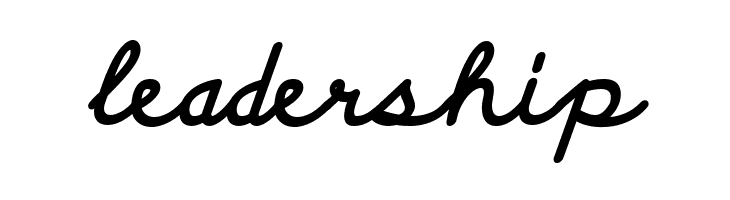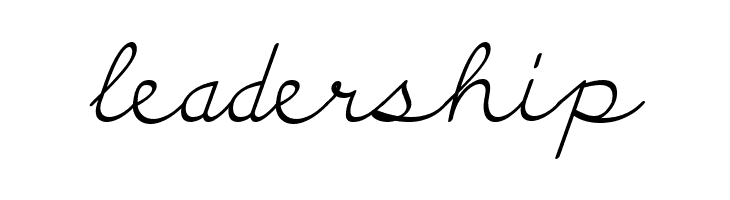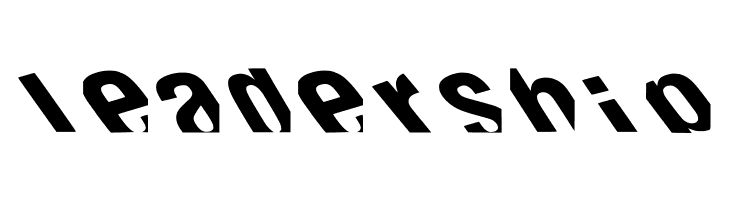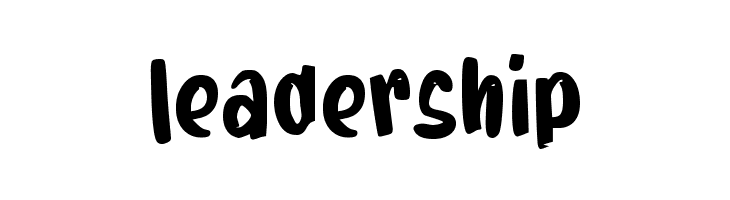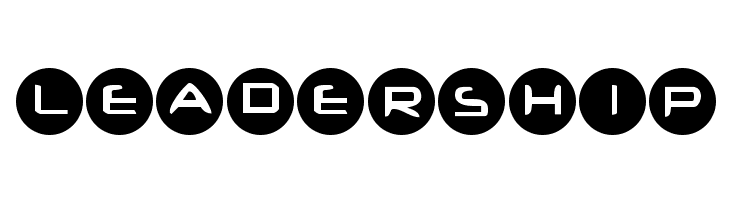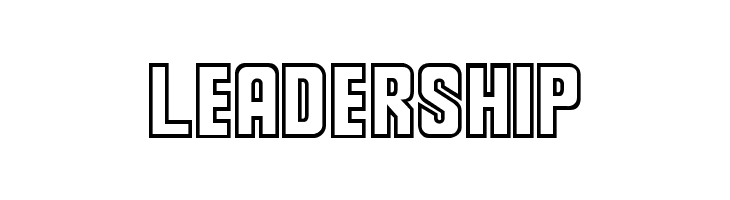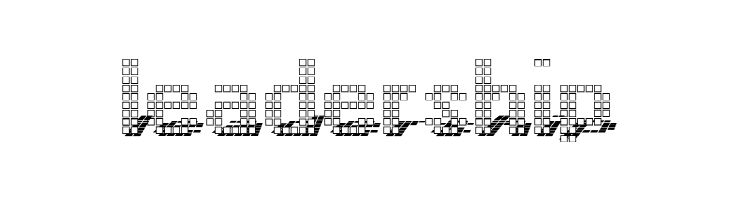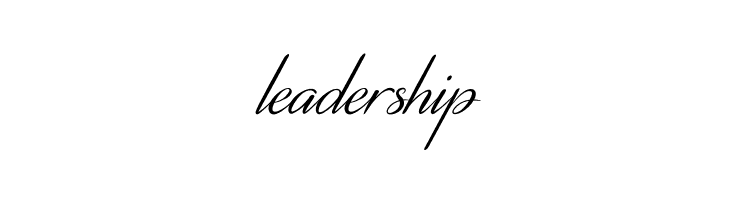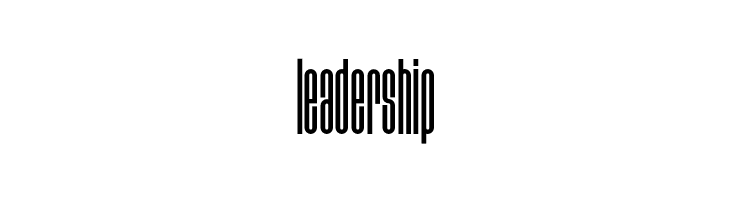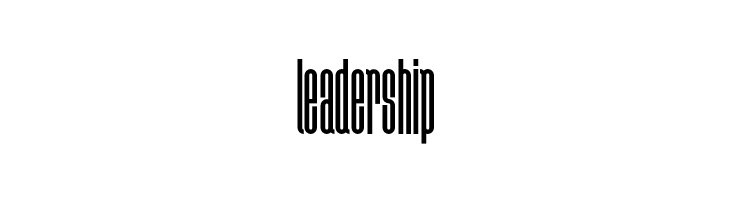
A dynamic and expressive script font with fluid, elegant letterforms.
A bold, geometric sans-serif font with rounded edges and uniform width.
A clean, geometric font with a modern and minimalist design.
A decorative font made entirely of dinosaur silhouettes.
A bold, cursive font with a playful, handwritten style.
A bold, decorative, and distressed italic font with a vintage flair.
A bold, decorative font with a distressed, vintage appearance and whimsical detailing.
A bold, decorative, and distressed italic font with a vintage flair.
A bold, decorative font with a distressed, vintage appearance.
An ornate and decorative font with intricate swirls and flourishes.
A bold, distressed font with a rugged, grunge appearance.
An elegant, flowing script font with ornate uppercase and harmonious lowercase characters.
A bold, playful font with a dynamic, hand-drawn style.
A bold, rugged font with a prehistoric, hand-carved appearance.
A playful, handwritten font with quirky dinosaur illustrations.
A bold, playful font with rounded, thick characters and a friendly style.
A rugged, distressed font with jagged, weathered edges.
A playful, casual handwritten font with flowing strokes and irregular letterforms.
A playful, handwritten font with rounded edges and a casual, friendly style.
A bold, geometric font with a modernist design and strong emphasis on lines.
A playful, hand-drawn font with bold, rounded strokes and an organic feel.
A casual, handwritten font with an organic and dynamic style.
A classic serif font with elegant curves and sharp serifs, perfect for formal and modern uses.
A bold and elegant font with a classic and sophisticated style.
A charming handwritten font with smooth, flowing curves and elegant strokes.
A playful, handwritten cursive font with medium contrast and dynamic flow.
A refined serif font with high contrast and elegant strokes.
A bold, geometric font with a 3D effect and sharp, clean lines.
A bold, 3D italic font with outlined characters and a futuristic style.
A bold, geometric font with a futuristic and industrial aesthetic.